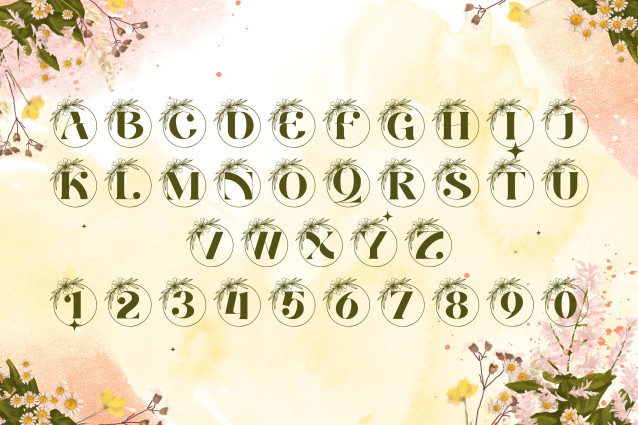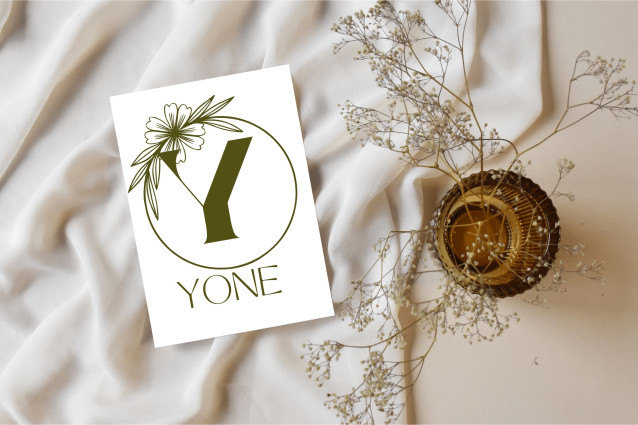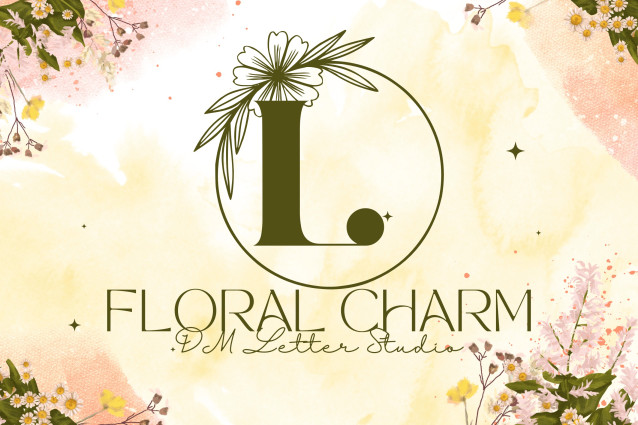
Floral Charm Monogram Font
Floral Charm Monogram Font is a delicate and ornate serif monogram font featuring beautifully detailed floral embellishments on each uppercase letter. Inspired by romantic garden aesthetics and timeless monogram traditions, this font brings graceful charm to weddings, personalized gifts, branding, and luxury stationery. Its refined yet organic design makes every initial feel custom and meaningful.